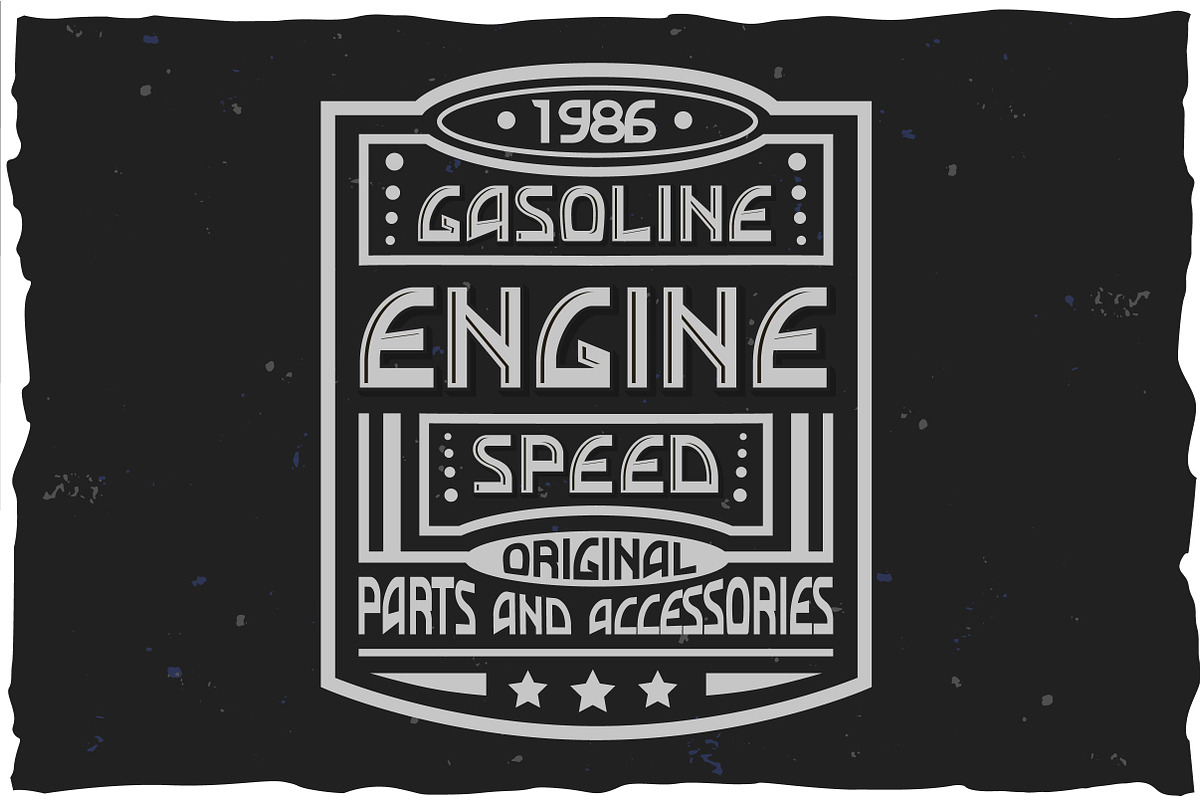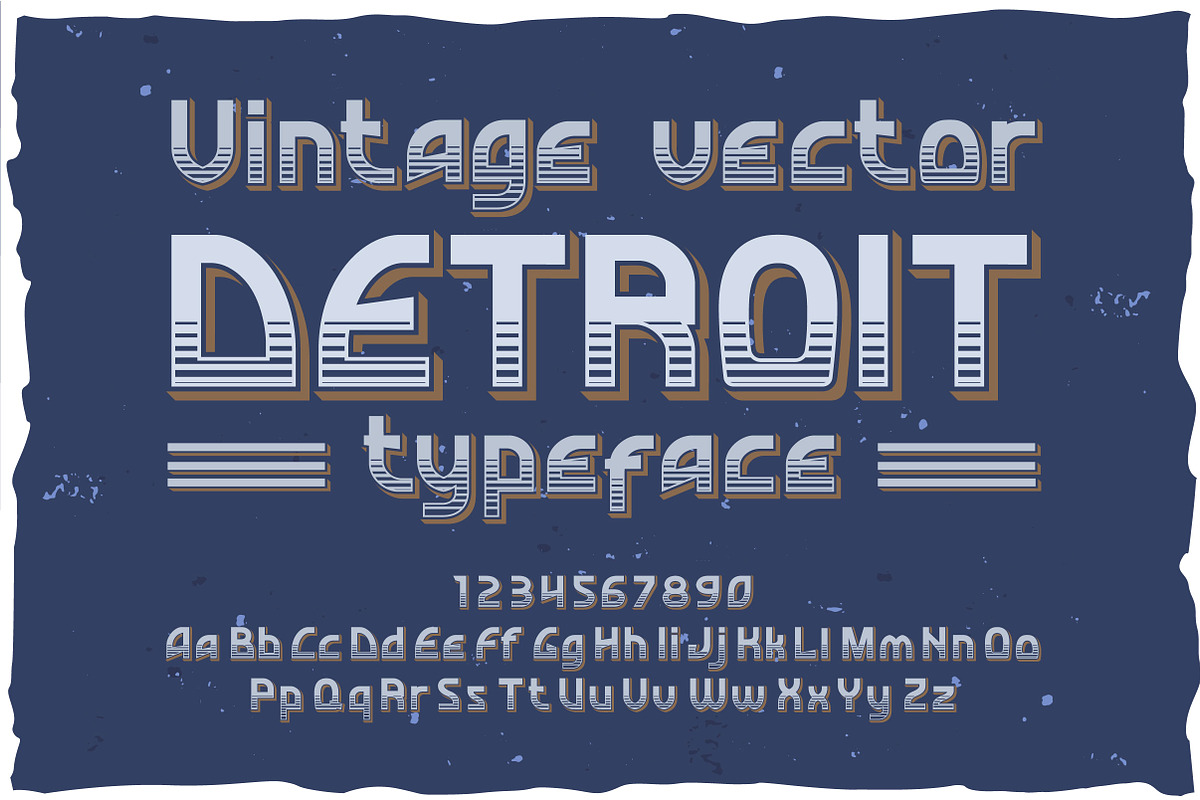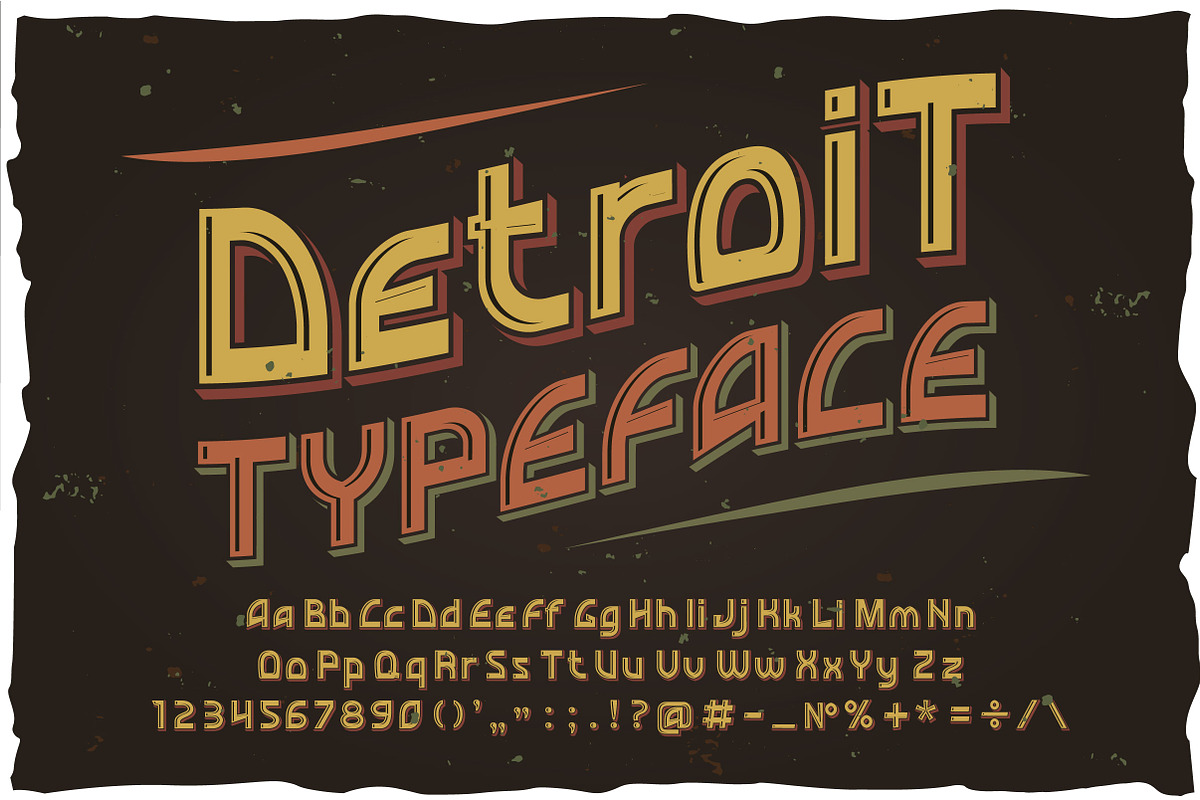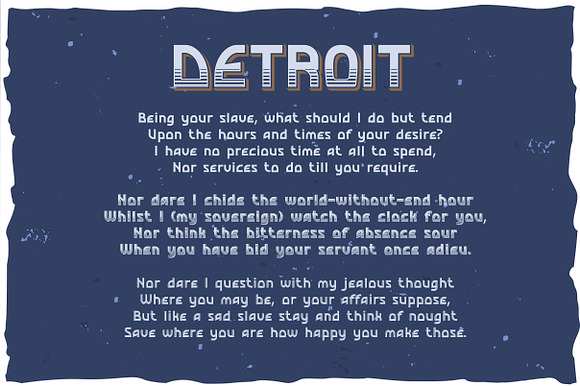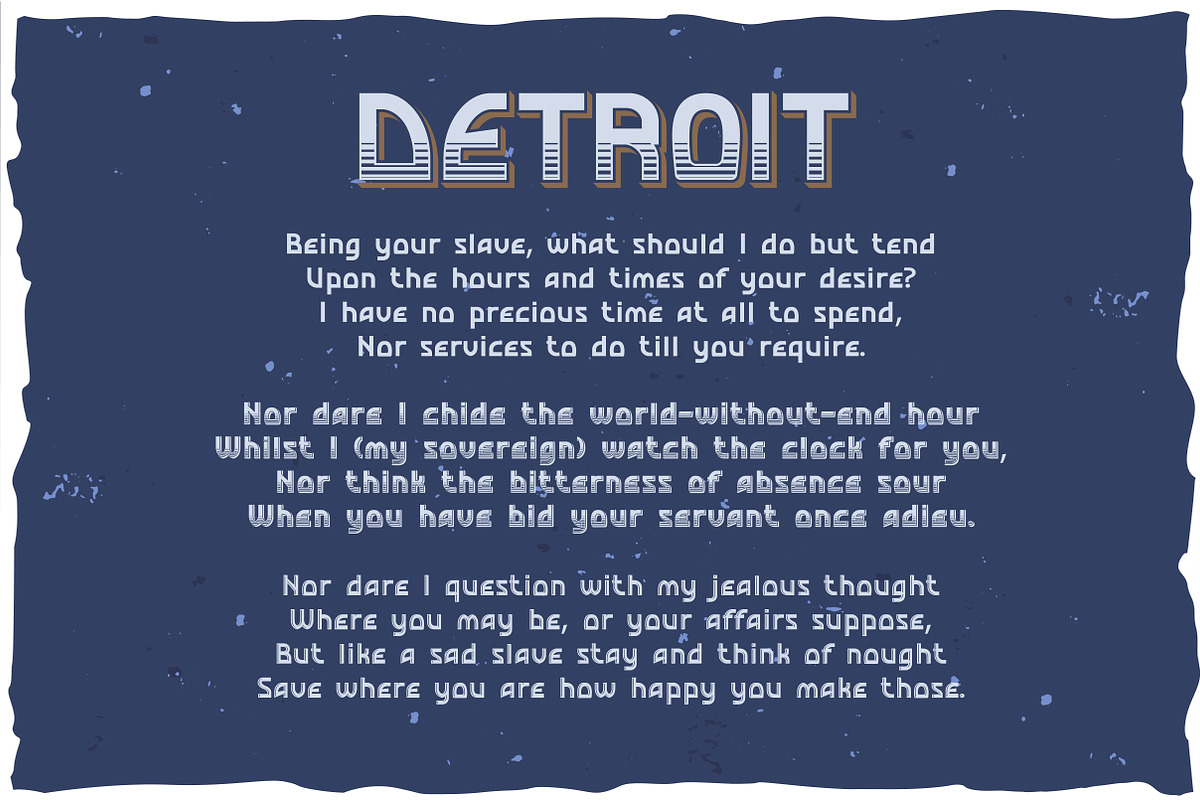
Detroit OTF vintage label font.
Vintage OTF vintage label font.
Detroit OTF vintage label font. by Fractal fonts & graphics fits naturally into Branding, posters, packaging, typography.